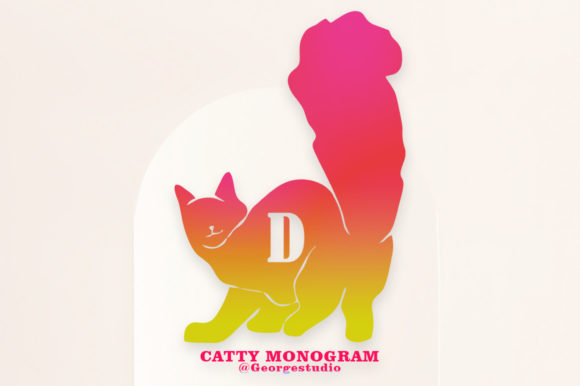
Immerse yourself in the captivating world of Catty Monogram, an enchanting decorative font that will ignite your creativity and leave an indelible mark on your designs. Step into a realm of visual elegance where feline grace meets typographic artistry, and discover the boundless possibilities that await you.
With Catty Monogram, the ordinary becomes extraordinary. Let your imagination soar as you craft stunning t-shirt logos that exude a sense of playful sophistication. This font is the perfect canvas for expressing your unique style, allowing you to create designs that are as charming as they are memorable.
Unleash your inner artist and explore the endless creative possibilities. Whether you're designing eye-catching social media posts, heartfelt greeting cards, or captivating stationary art, Catty Monogram will elevate your work to new heights. Its intricate cat ornaments add a touch of whimsy and allure, transforming your designs into captivating masterpieces.
Experience the authentic feel of hand-crafted beauty as Catty Monogram dances across your screen. Let your creativity flow freely as you immerse yourself in the magic of this decorative font. It's the perfect choice for those who seek to add a touch of elegance and enchantment to their designs.